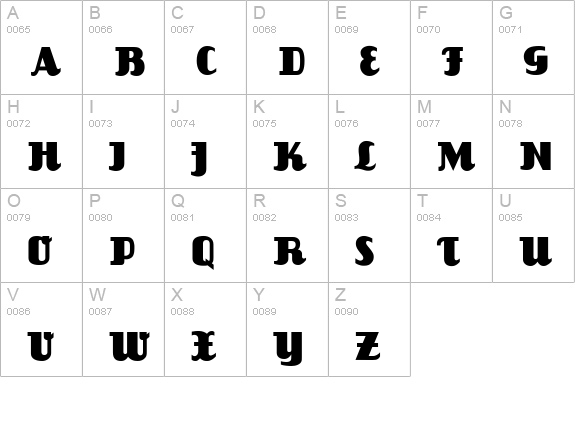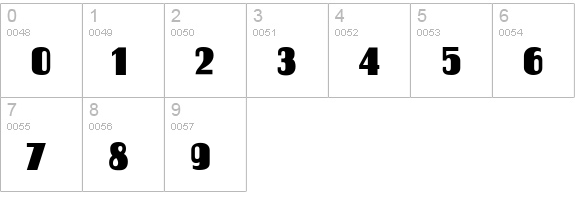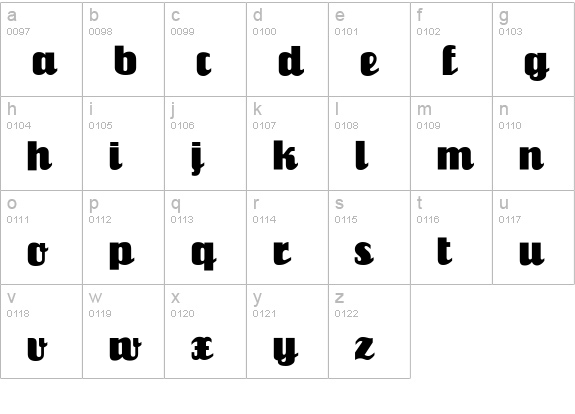
CgSalut Font Details
CgSalut font is a stylish and versatile typeface that is perfect for a wide range of design projects. With its modern and sleek design, CgSalut font adds a touch of sophistication to any text. This font features clean lines and sharp edges, making it ideal for both headings and body text. The best part about CgSalut font is that it is completely free to download. You can easily access this beautiful font at FontsMarket.com without any cost. Whether you're working on a personal project or a professional design, CgSalut font is a great choice for adding a touch of elegance to your work. Don't miss out on this amazing font - download it today and elevate your design projects!